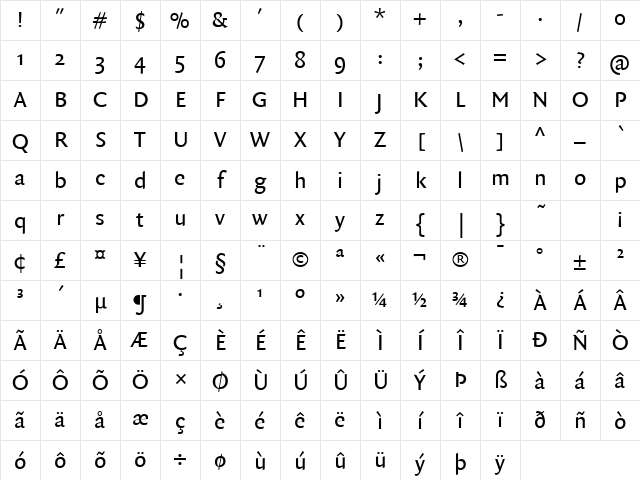
QuadraatSans-Regular Regular
Design Context for QuadraatSans-Regular
QuadraatSans-Regular is a composed and adaptable typeface that performs quietly and consistently across a wide range of design contexts.
Pro Tip: Use QuadraatSans-Regular in both headline and body roles to test its range before committing to a single application.